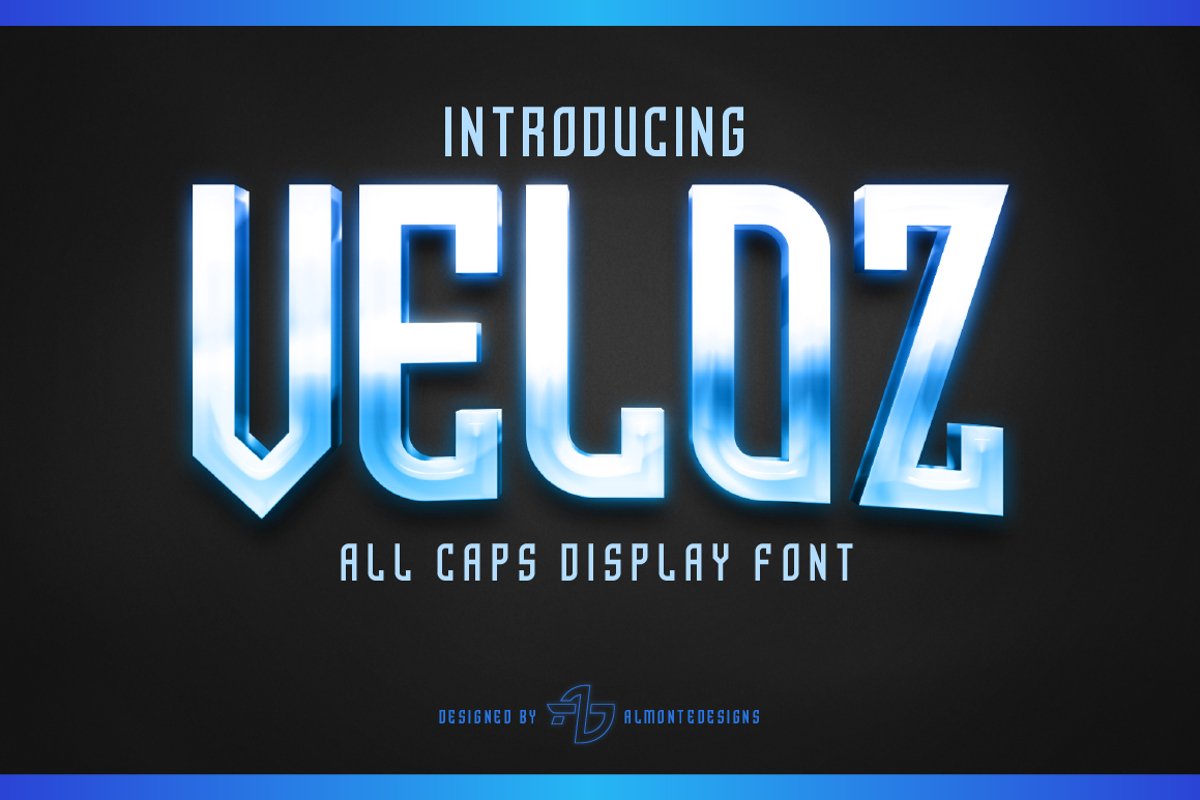
Veloz Display
Veloz is a bold font that was designed to make a powerful impact. Use it for your sports team logo to give it a nice sharp design! Feel free to reach out to me with any questions!